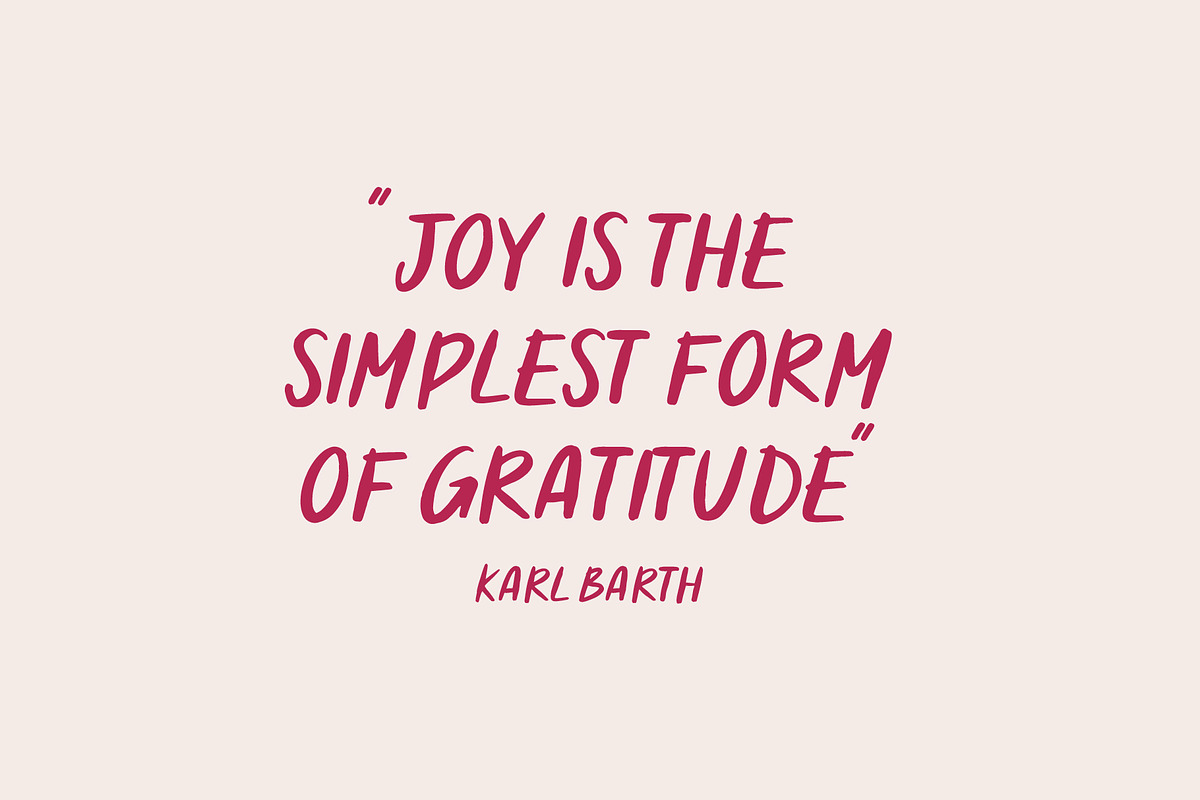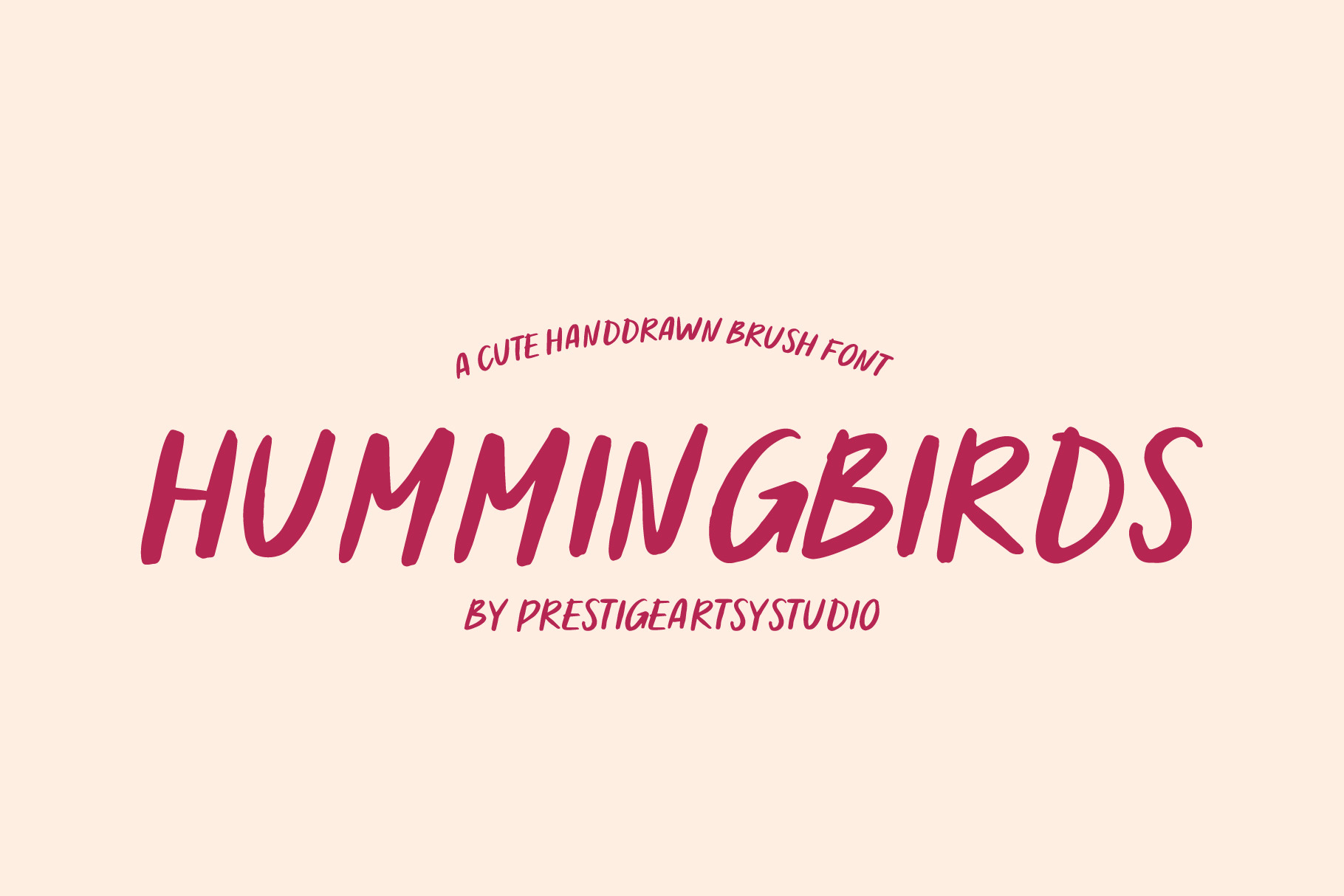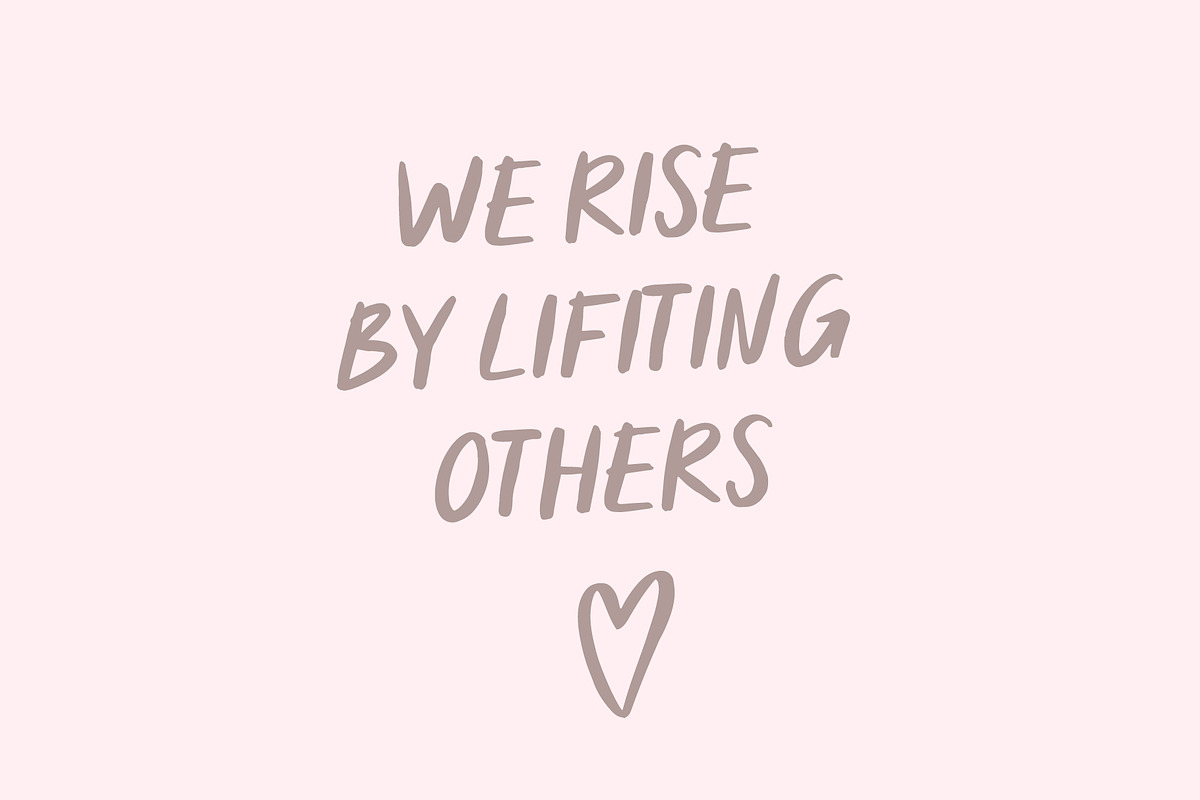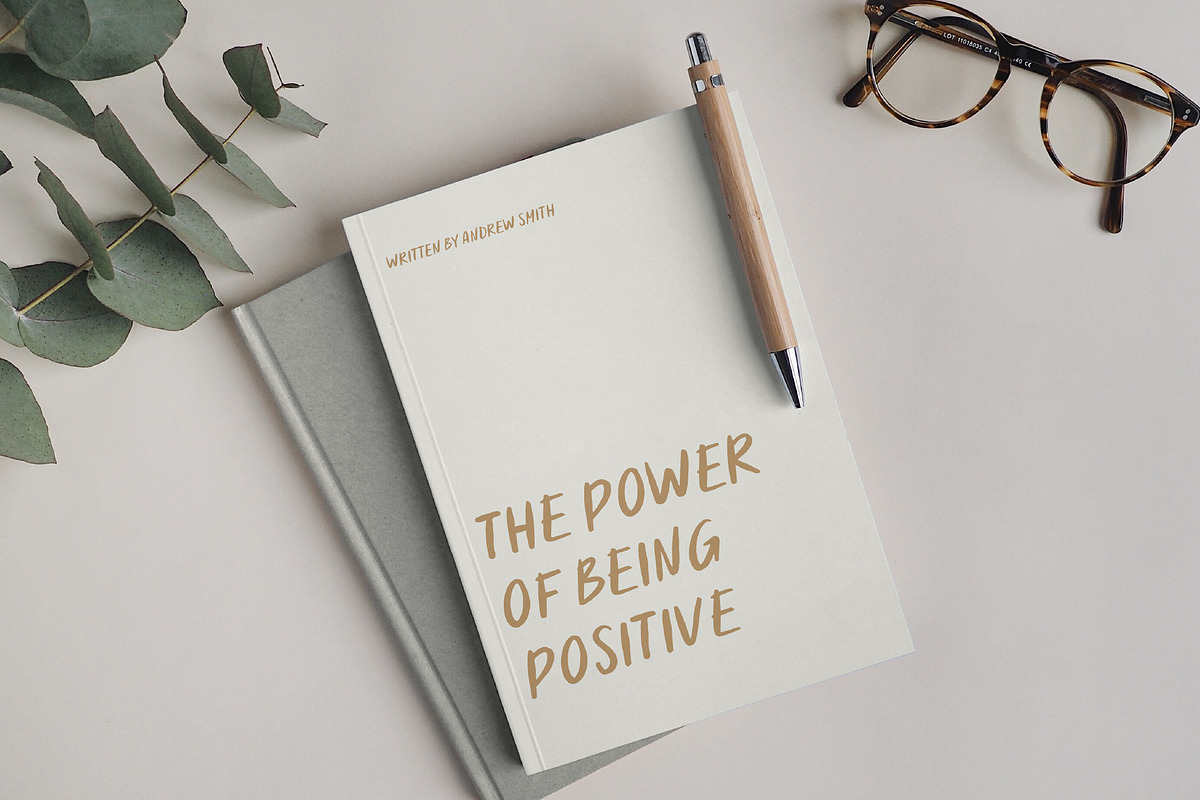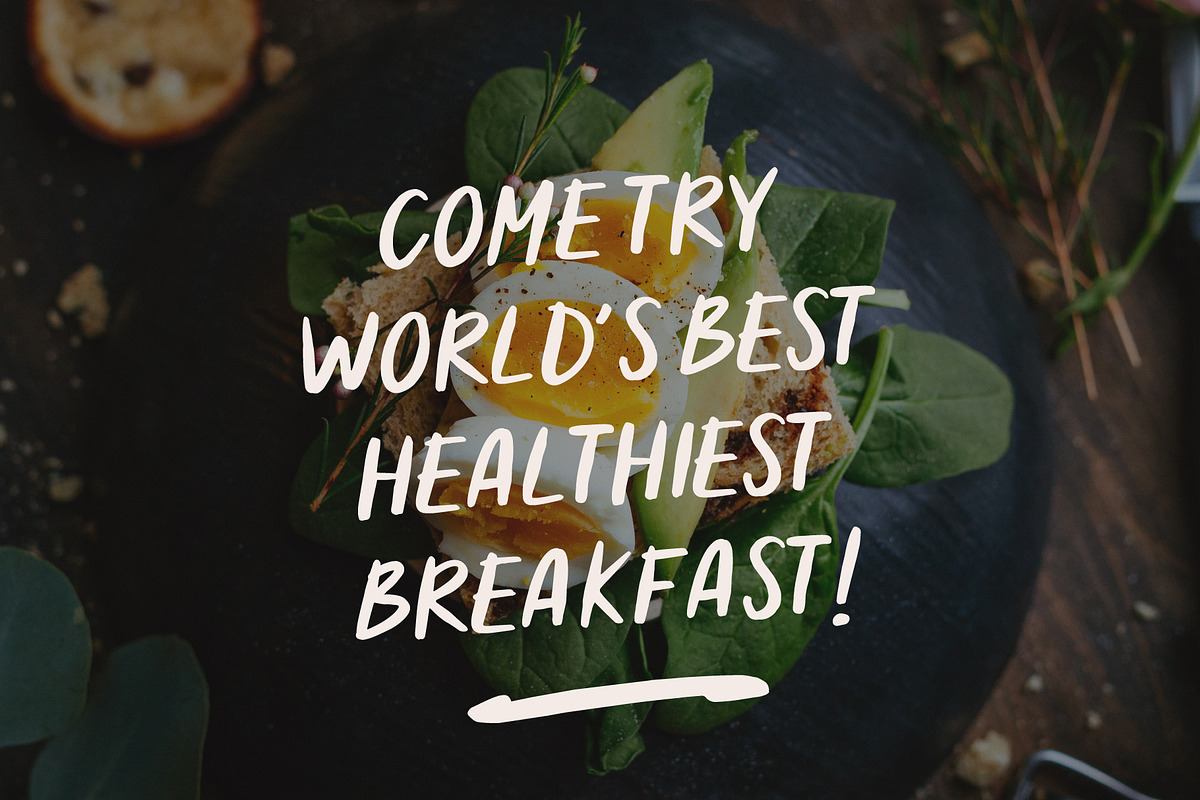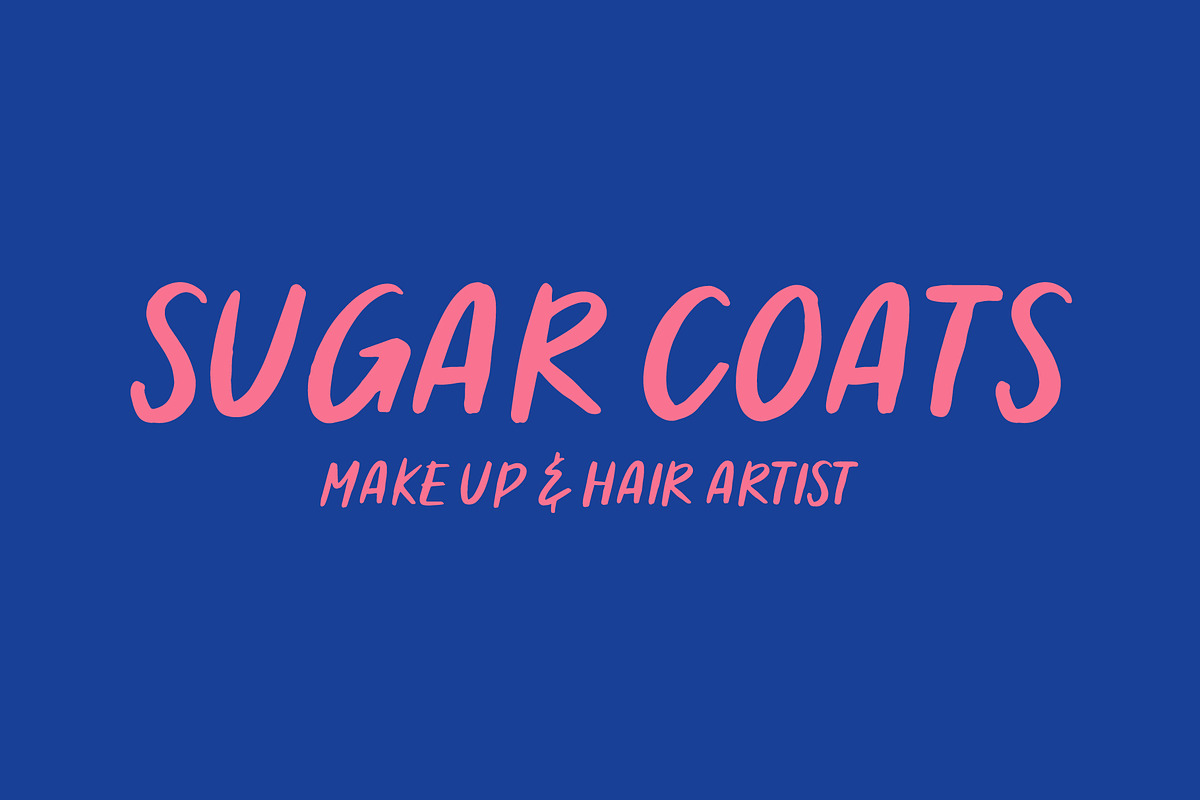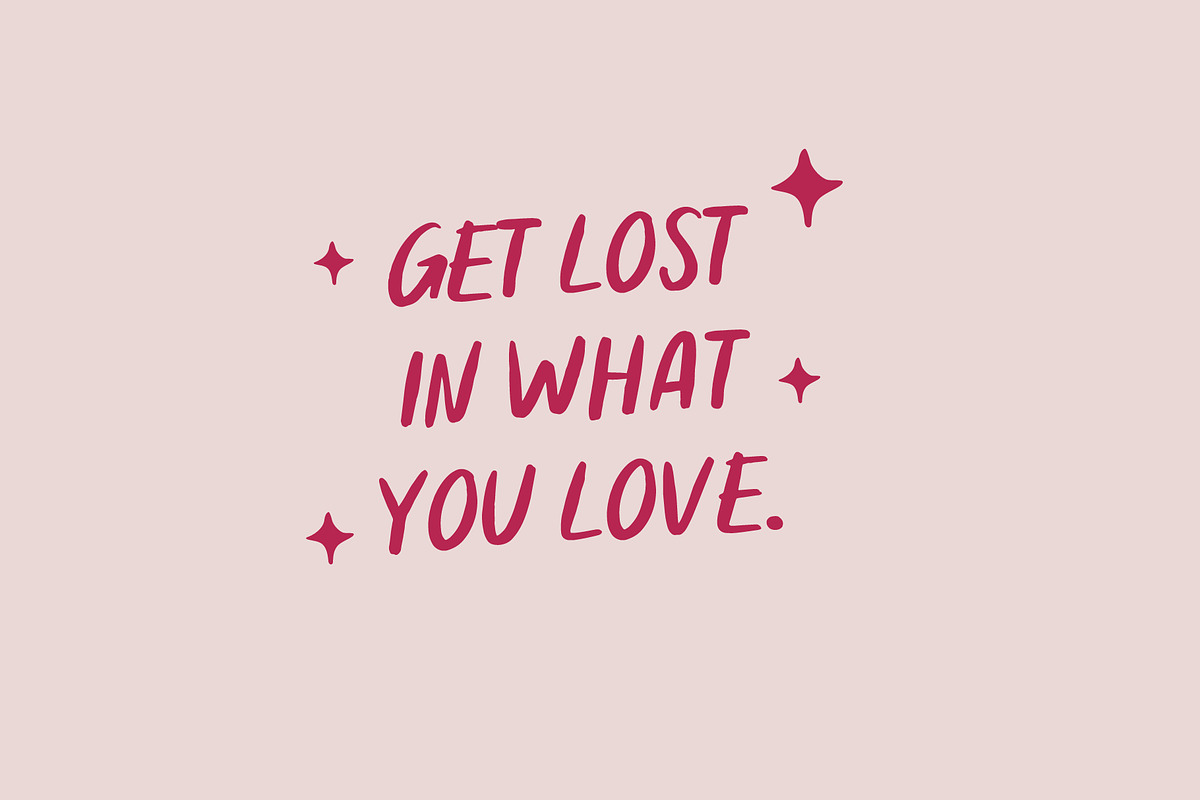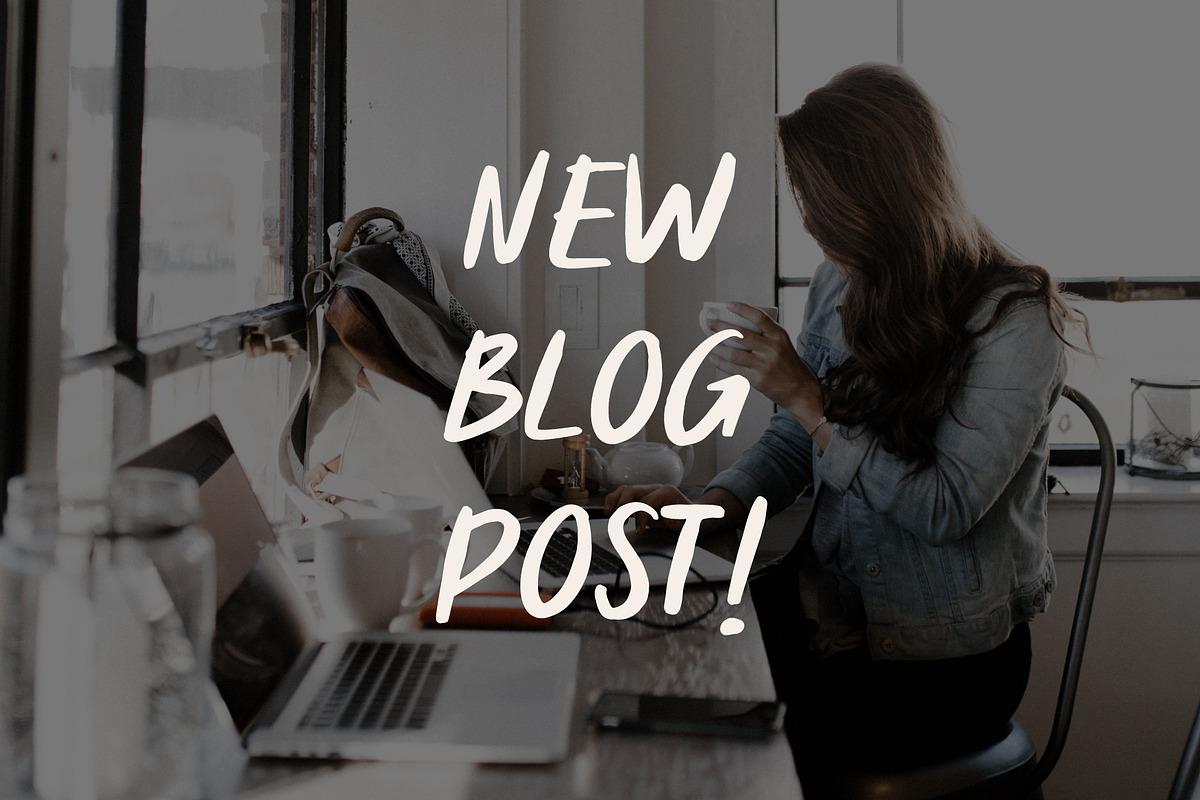
Hummingbirds A Cute Handwritten Font
Introducing Hummingbirds a cute handwritten and handcrafted font. Make your designs stand out thanks to its natural brush strokes! Hummingbirds works perfectly on social media posts, handwritten quotes, magazines, and much more.